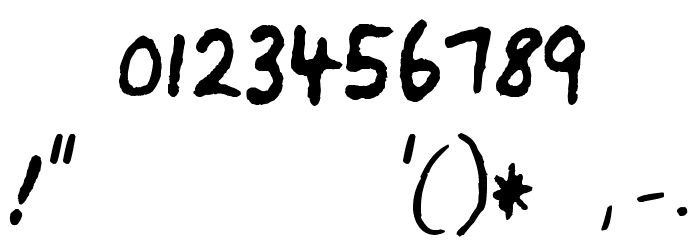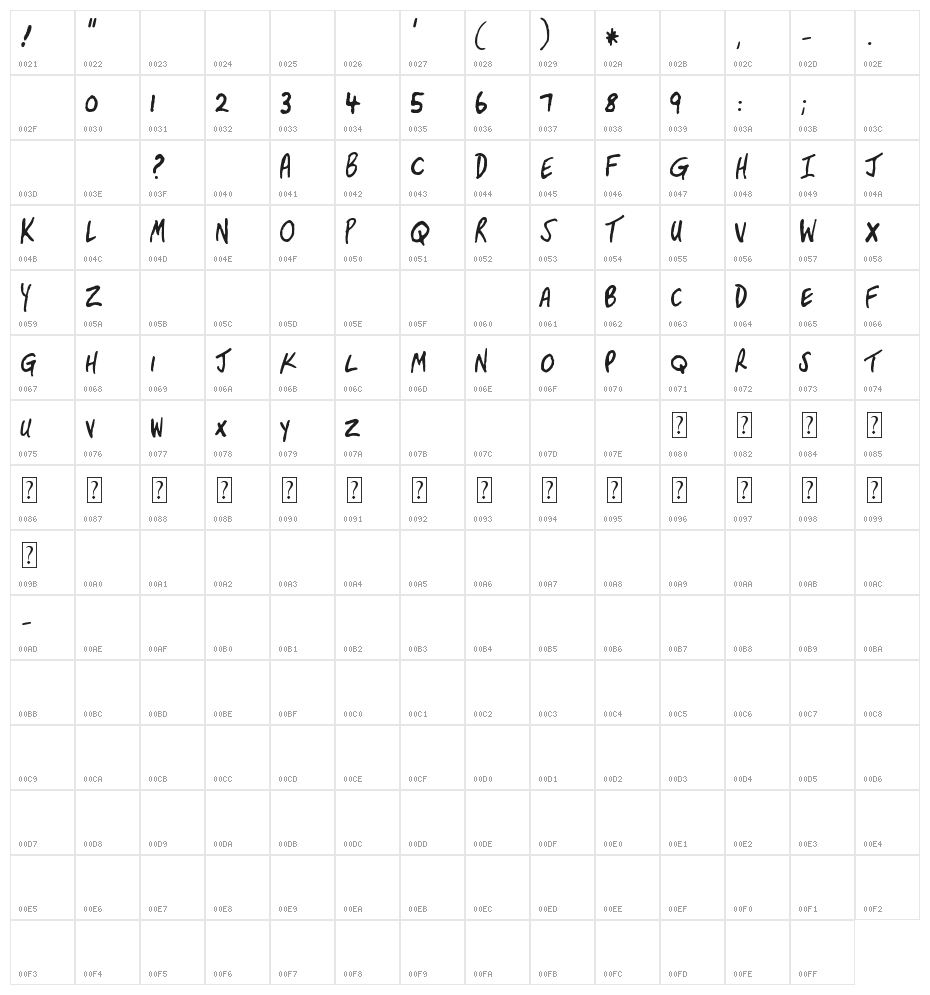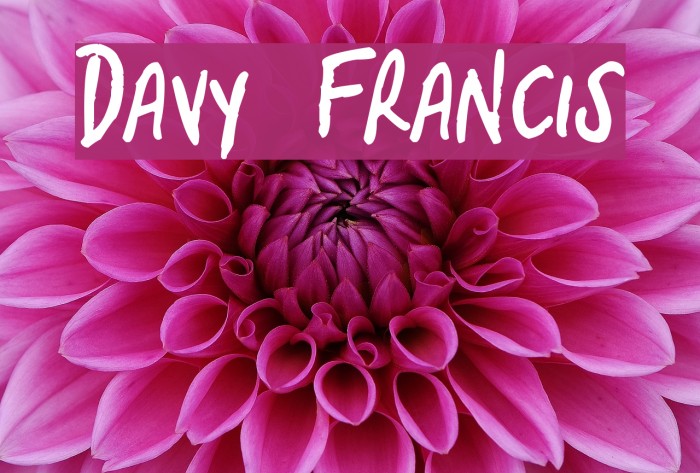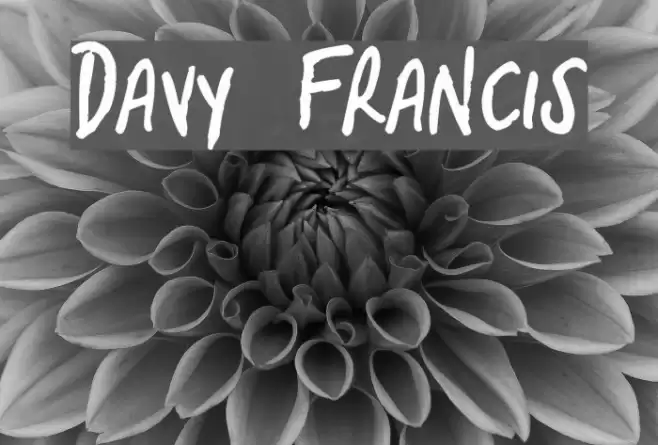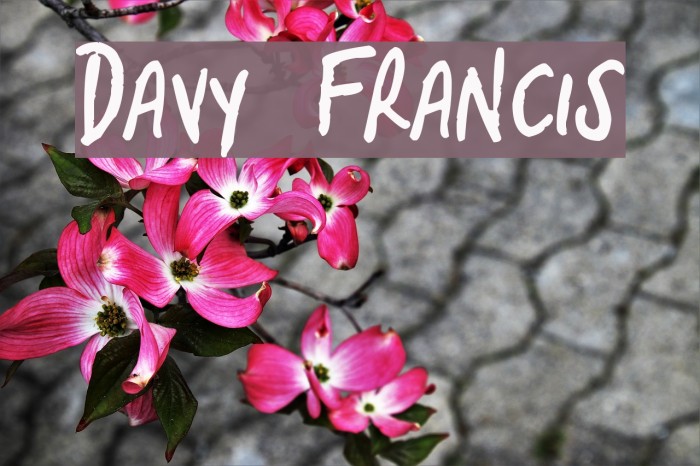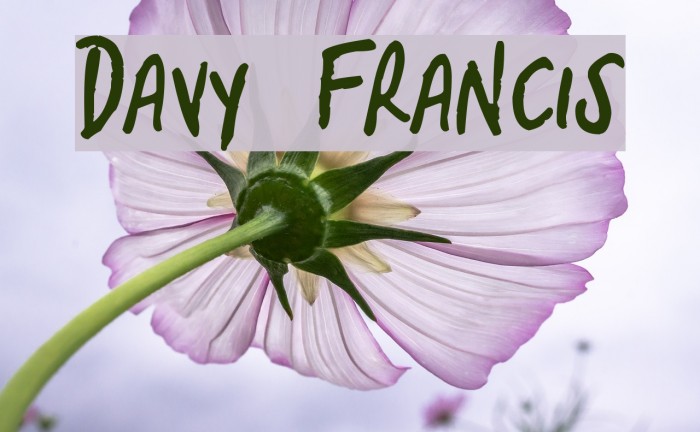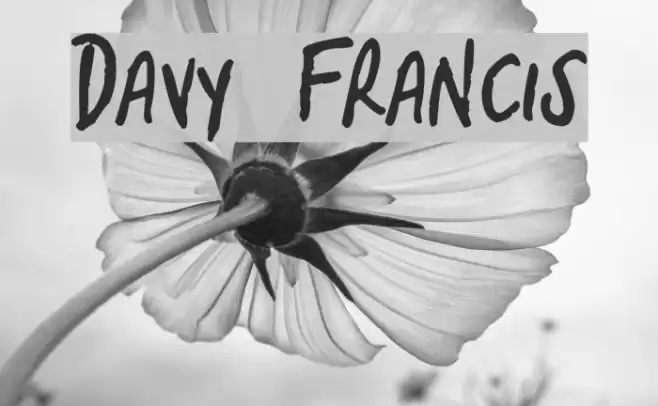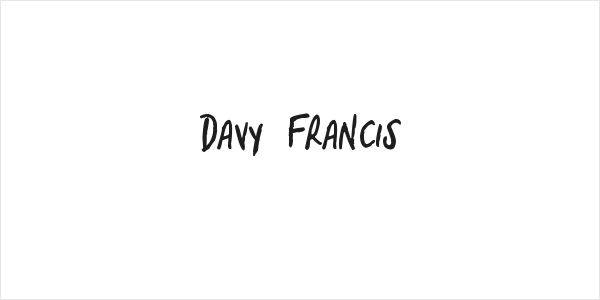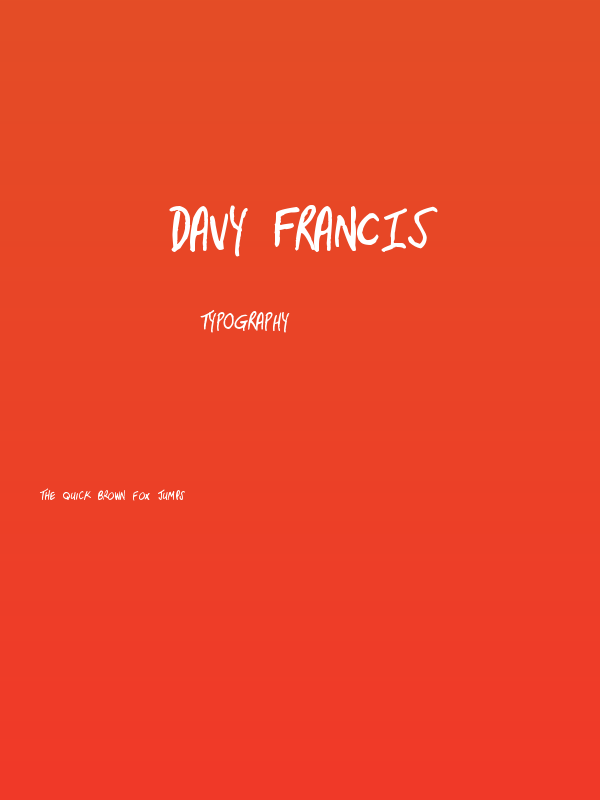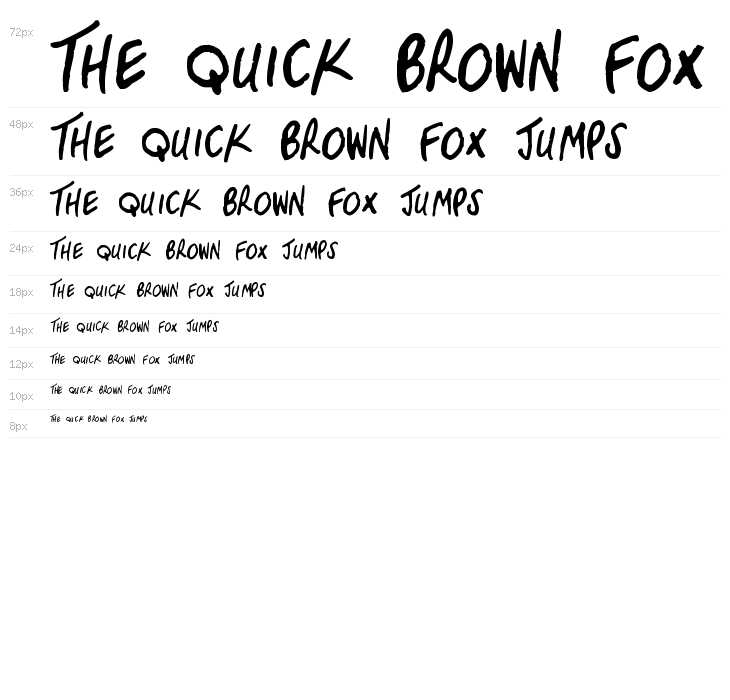
Davy Francis Font
Davy Francis Description
This font features a bold, handwritten style with a natural, organic flow. The characters are slightly irregular, giving it a personal and casual feel. The strokes are thick and consistent, with a medium contrast between thick and thin lines. The overall appearance is dynamic and energetic, making it suitable for projects that require a touch of personality and informality. The spacing between characters is normal, ensuring readability while maintaining its unique style.
Overall StyleCasual
Use CaseLogos, Headlines, Informal Text
Proposed ProjectsIdeal for greeting cards, personal branding, social media graphics, and informal invitations.